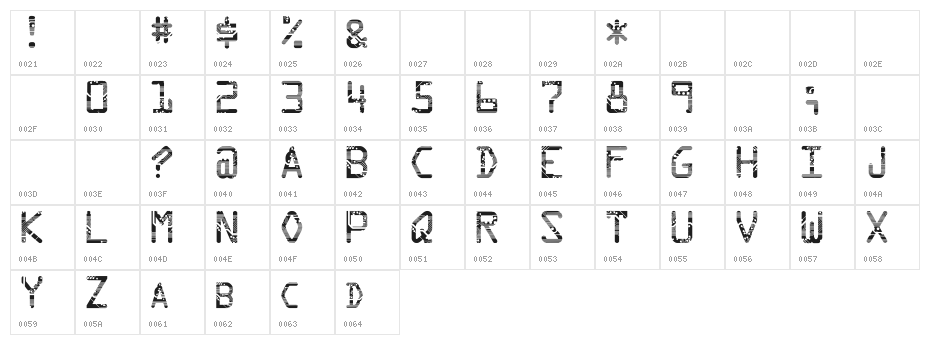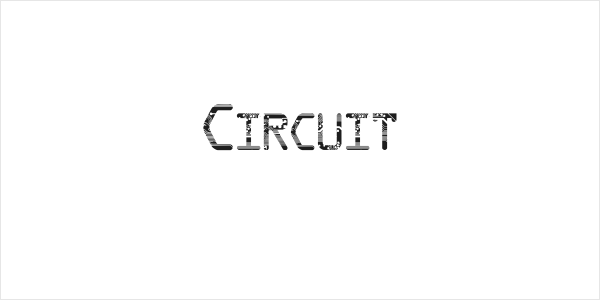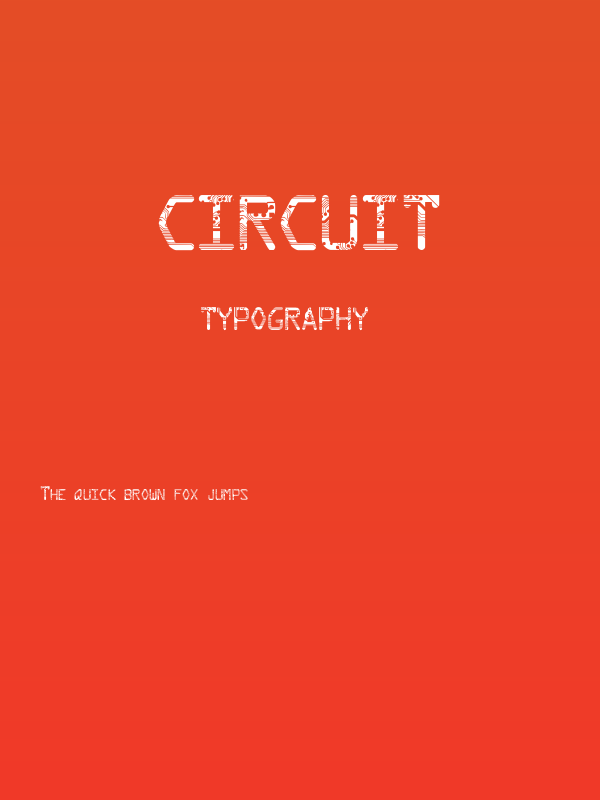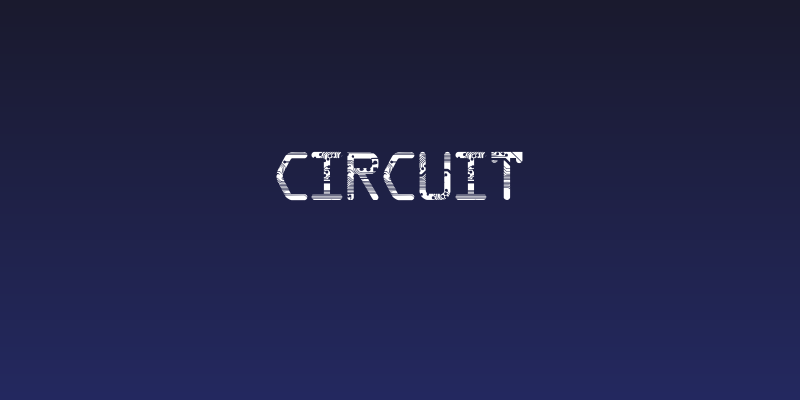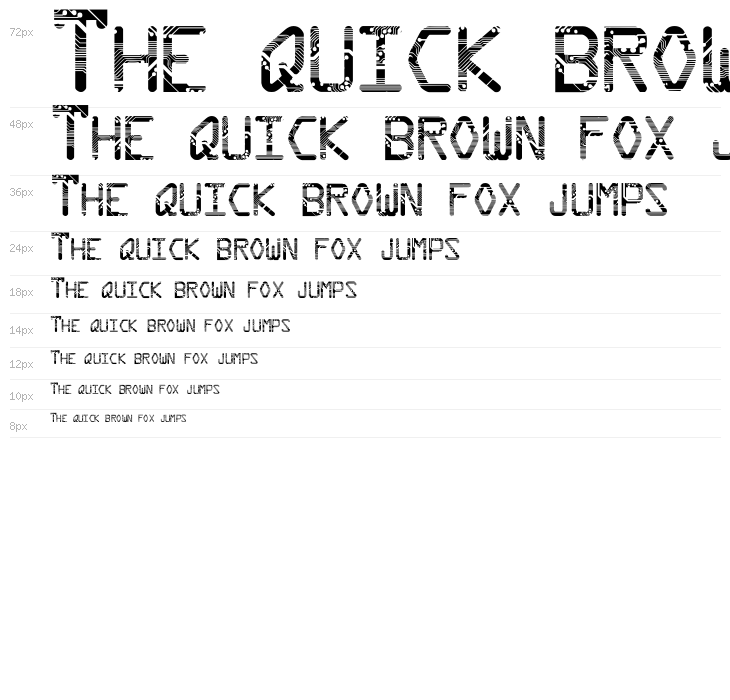
Circuit Font
Circuit Description
This font features a unique and intricate design reminiscent of electronic circuits and digital technology. Each character is composed of a series of lines and patterns that mimic the pathways found on a circuit board, giving it a highly technical and futuristic appearance. The font maintains a consistent structure across all characters, with sharp angles and precise line work that enhance its digital aesthetic. The combination of solid and broken lines creates a dynamic visual effect, making it ideal for projects that require a modern and tech-savvy look.
| Proposed Projects | Ideal for tech-related branding, digital media, sci-fi themed designs, and innovative product packaging. |